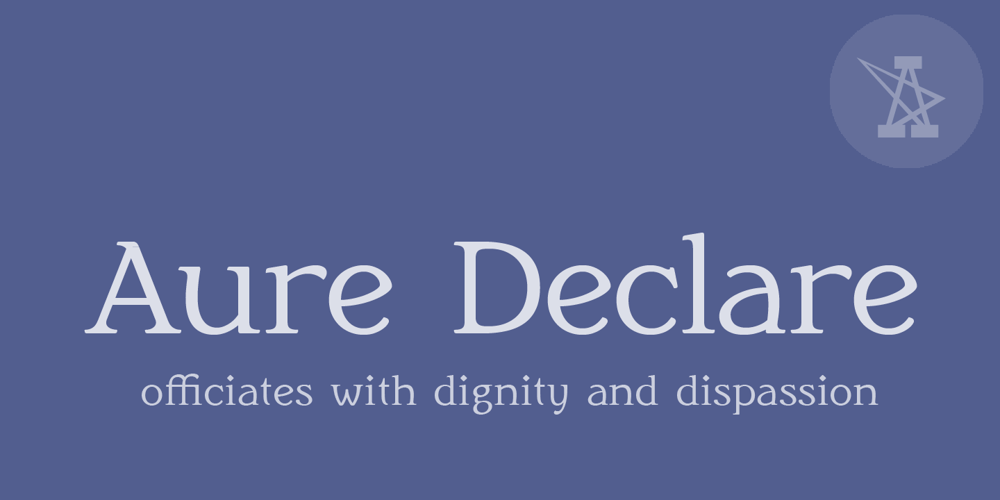
Aure Declare Font Family was designed by Aurora Isaac and published by Aure Font Design. Aure Declare contains 8 styles and family package options. Aure Declare officiates with dignity and dispassion. These traditional serif forms engage the reader with a no-nonsense subtext of reliability. Declare’s capacity to showcase the message rather than the medium brings a welcome legibility to extended text and a formal assertion to astrological expressions and chartwheels. Declare is an original design developed by Aurora Isaac. After more than a decade in development, 2018 marks the first release of the CJ and KB glyphsets in regular, italic, bold, and bold-italic. The CJ glyphset is a full text font supporting a variety of European languages. A matching set of small-caps complements the extended lowercase and uppercase glyphsets. Supporting glyphs include standard ligatures, four variations of the ampersand, and check-mark and happy-face with their companions x-mark and grumpy-face. Numbers are available in lining, oldstyle, and small versions, with numerators and denominators for forming fractions. Companion glyphs include Roman numerals, specialized glyphs for indicating ordinals, and a variety of mathematical symbols and operators. The CJ glyphset also includes an extended set of glyphs for typesetting Western Astrology. These glyphs are also available separately in the KB glyphset: a symbol font re-coded to allow easy keyboard access for the most commonly used glyphs. In addition to Aure Declare’s versatility as a text font, Declare pairs well as a no-nonsense foil to any decorative design. Aure Sable, for example, will shine all the more beside Declare’s practicality. Aure Declare pairs especially well with its close cousin, Aure Wye. Wye’s decorative forms provide elegant titles and drop-caps for Declare’s extended text. Give Aure Declare a trial run! You may discover a permanent place for this font family in your typographic palette. >> AureFontDesign.com